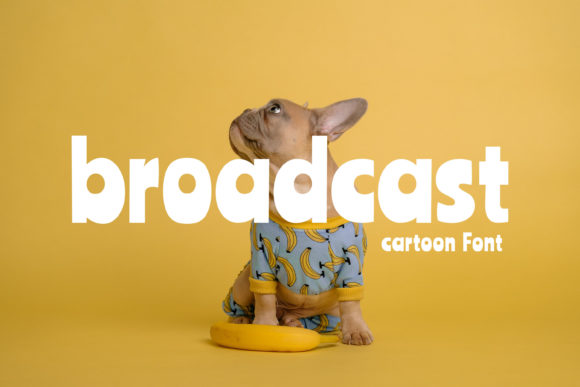
Dive into the whimsical world of Broadcast Font, the ultimate choice for injecting joy and laughter into your designs! This playful display font is a master of cartoonish charm, ready to transform your creations into captivating works of art.
Imagine your designs bursting with the vibrant energy of a beloved cartoon, evoking fond memories and sparking smiles. Broadcast Font empowers you to bring your characters and scenes to life with its enchanting curves and playful strokes.
Whether you're crafting enchanting children's games, designing captivating posters, or adding a touch of whimsy to your branding, Broadcast Font is your trusty companion. Its boundless versatility allows you to weave it seamlessly into any project that calls for a dash of lighthearted fun.
With Broadcast Font as your ally, your designs will radiate a sense of warmth and cheer, inviting viewers to immerse themselves in a world of imagination and delight. Embrace the power of playfulness and let your creativity soar with this extraordinary display font!